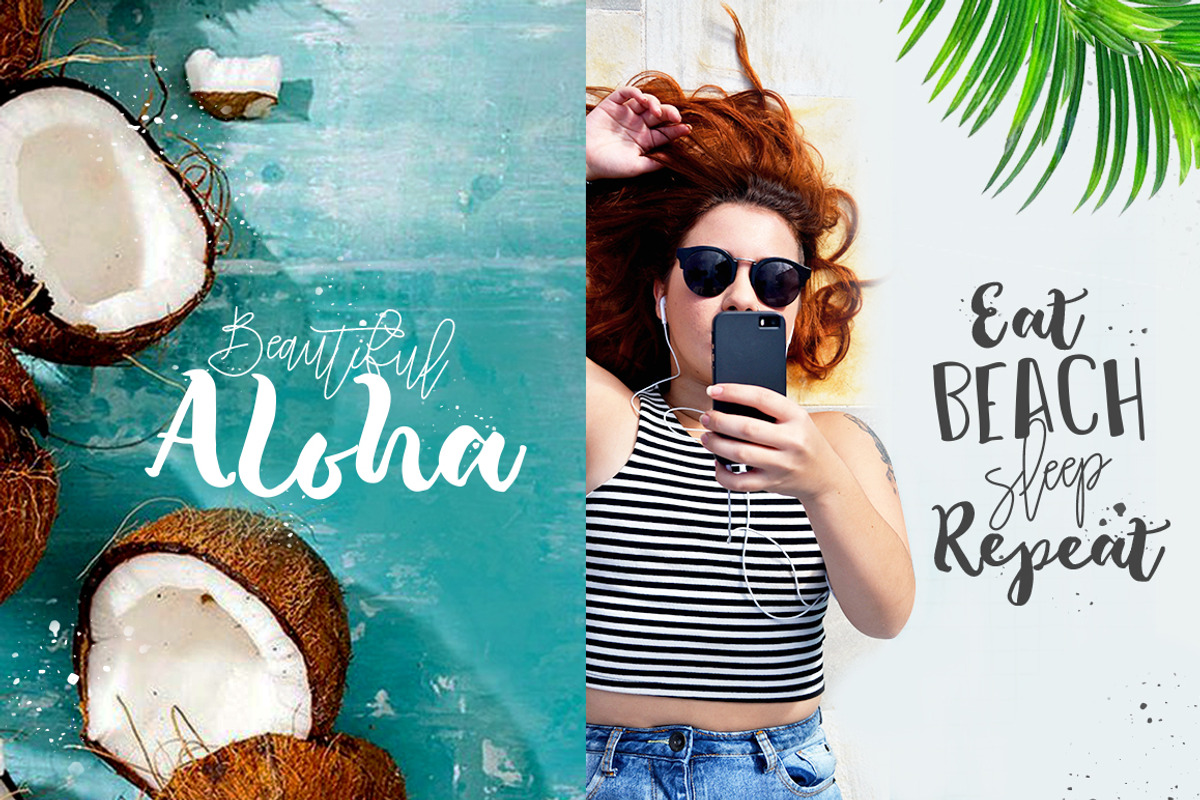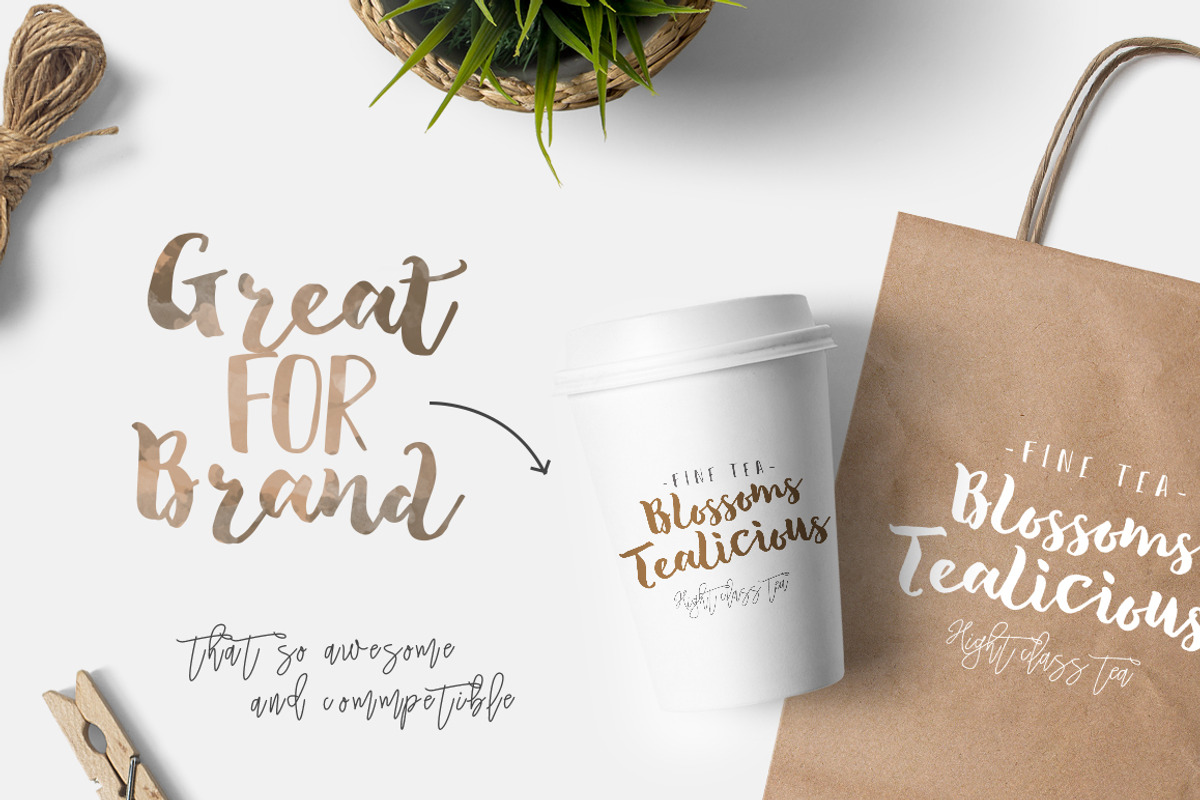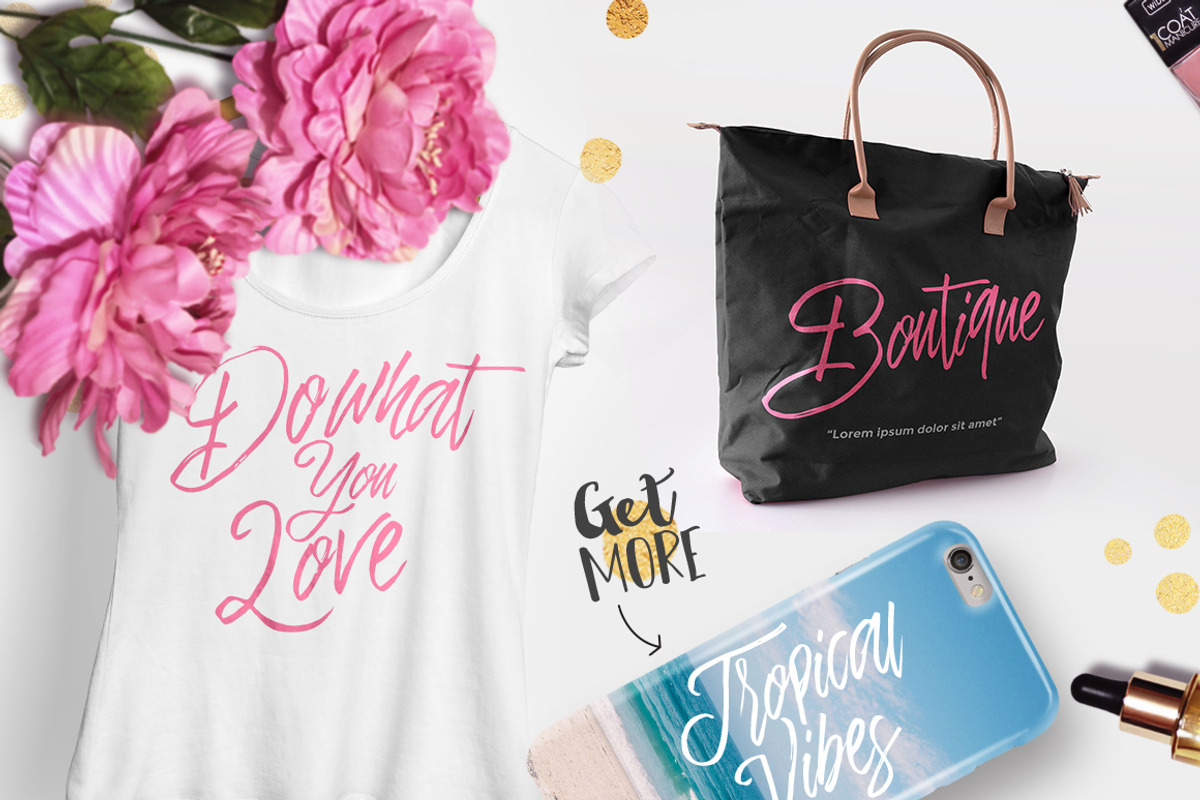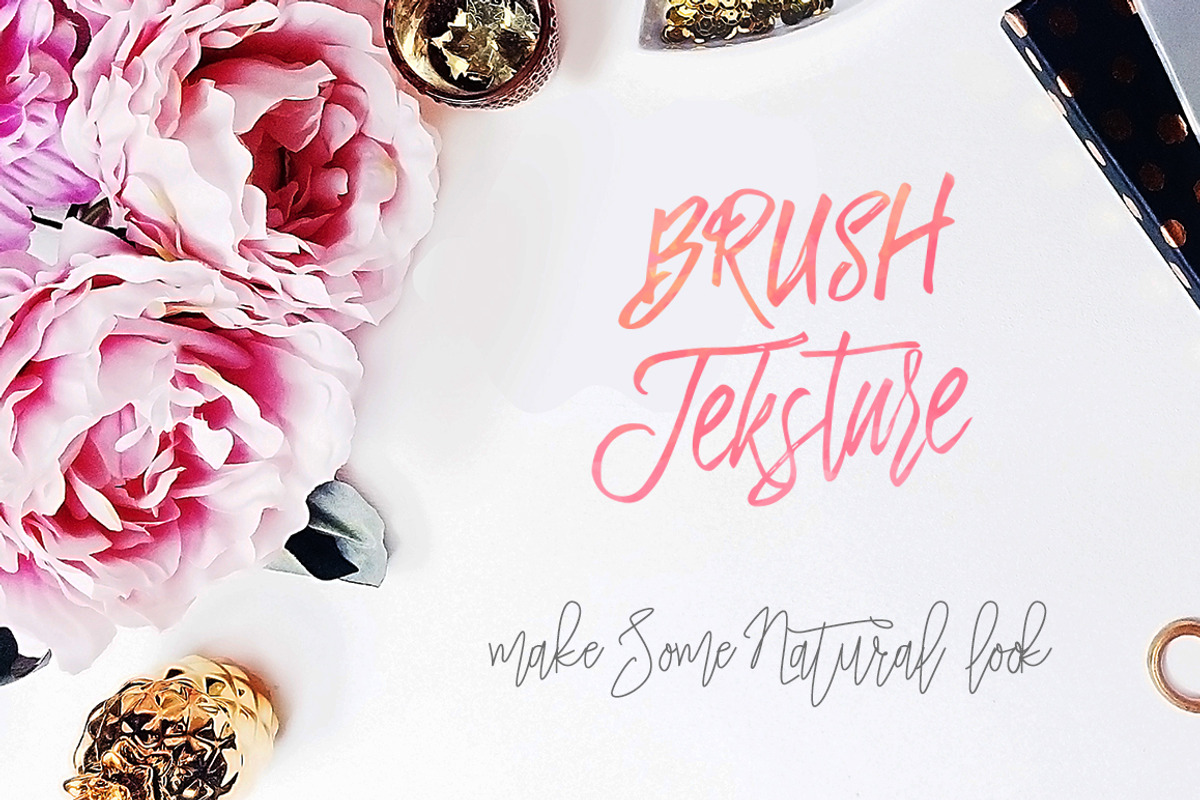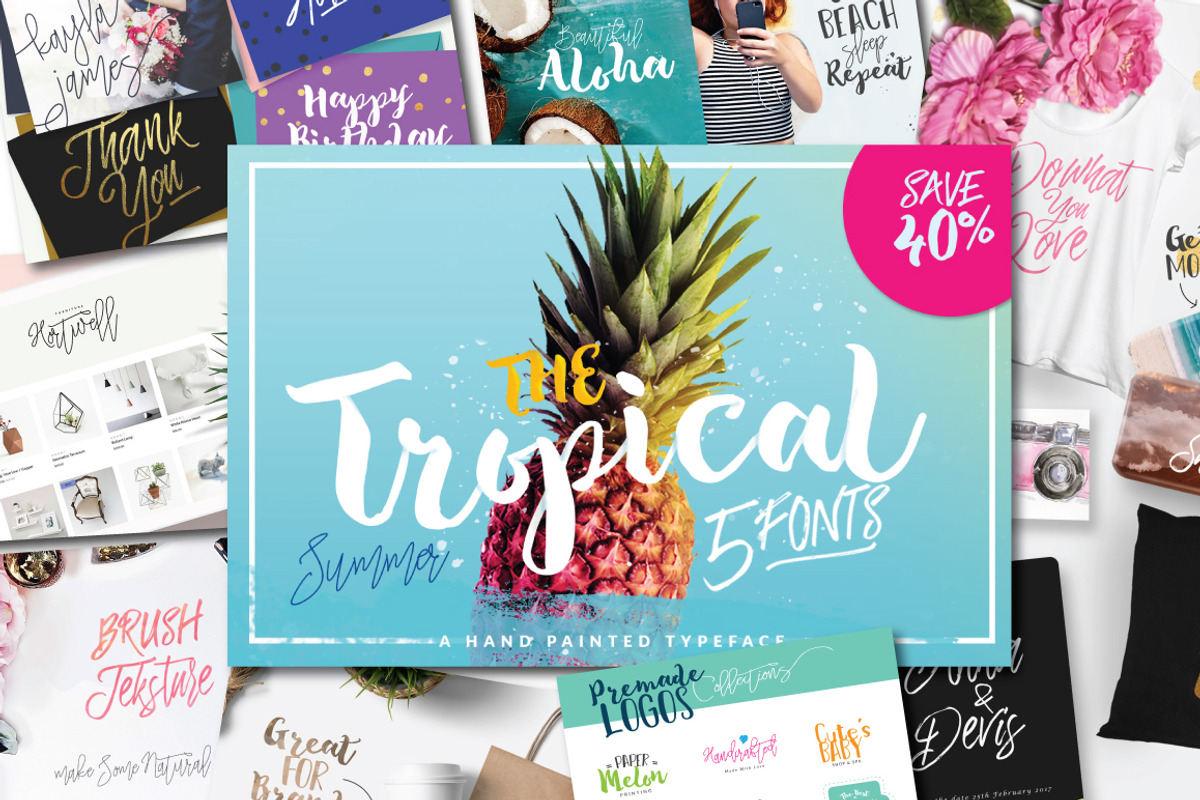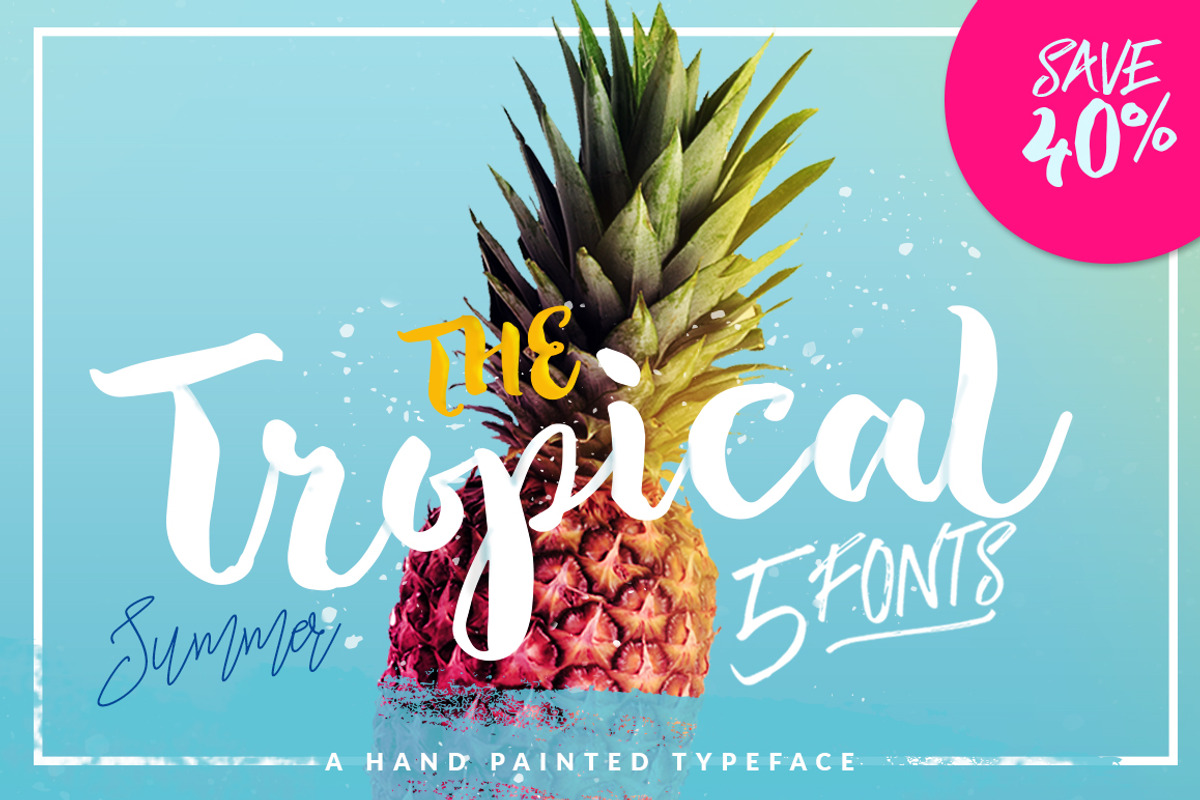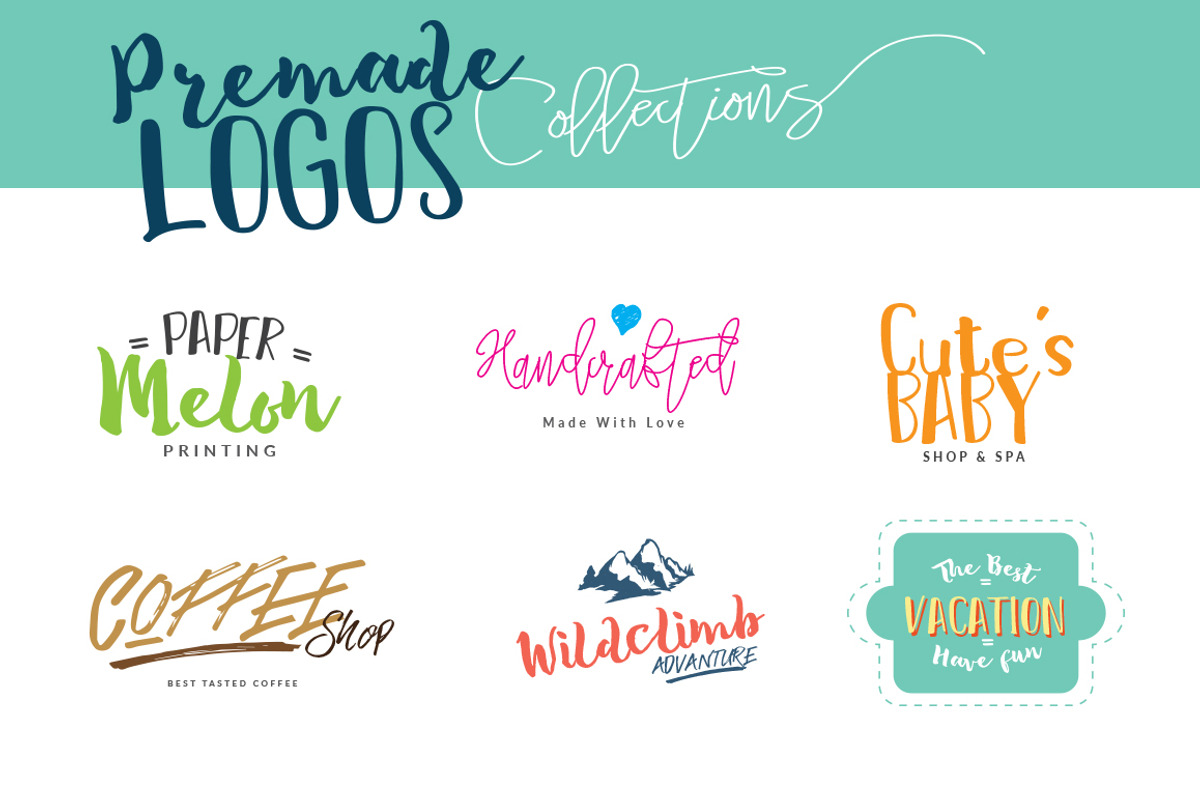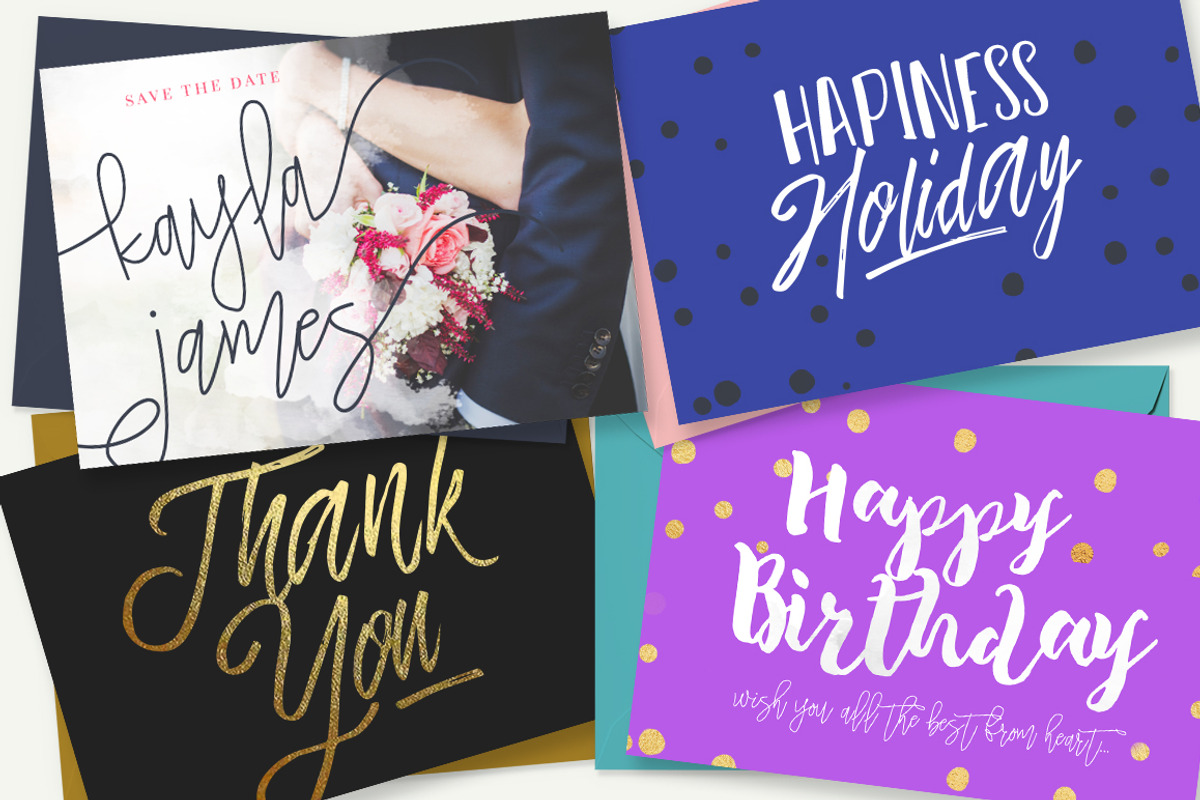
SALE !!! The Tropical - 5 Fonts
SALE !!! The Tropical - 5 Fonts by Dirtyline Studio is a font selected for branding, posters, packaging, typography.
- with 177 Glyphs and more ligature.
- Tropical Hard Brush Caps : A Rough Dry Brush All Caps with 204 Glyphs and more Ligature.
- with 287 Glyphs More Opentype Feature : Ligature, Stylistic Set and More Alternate.
SALE !!! The Tropical - 5 Fonts by Dirtyline Studio fits naturally into Branding, posters, packaging, typography.